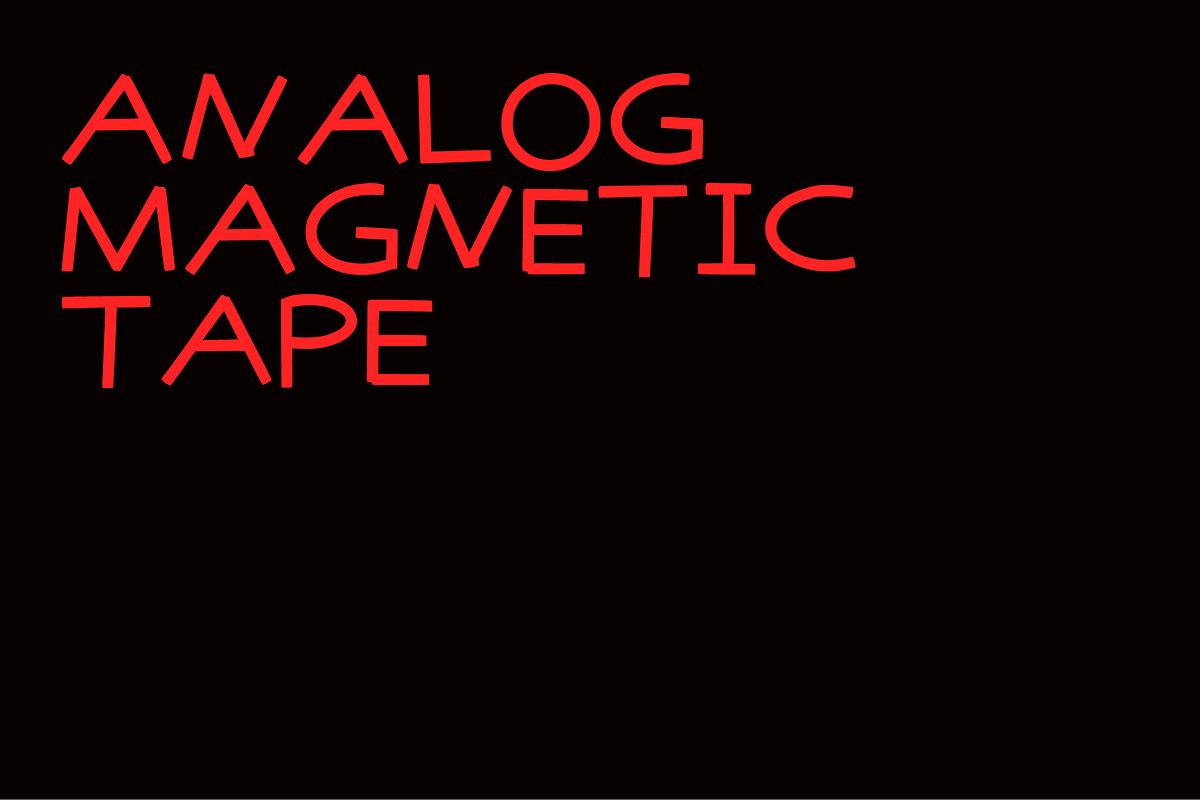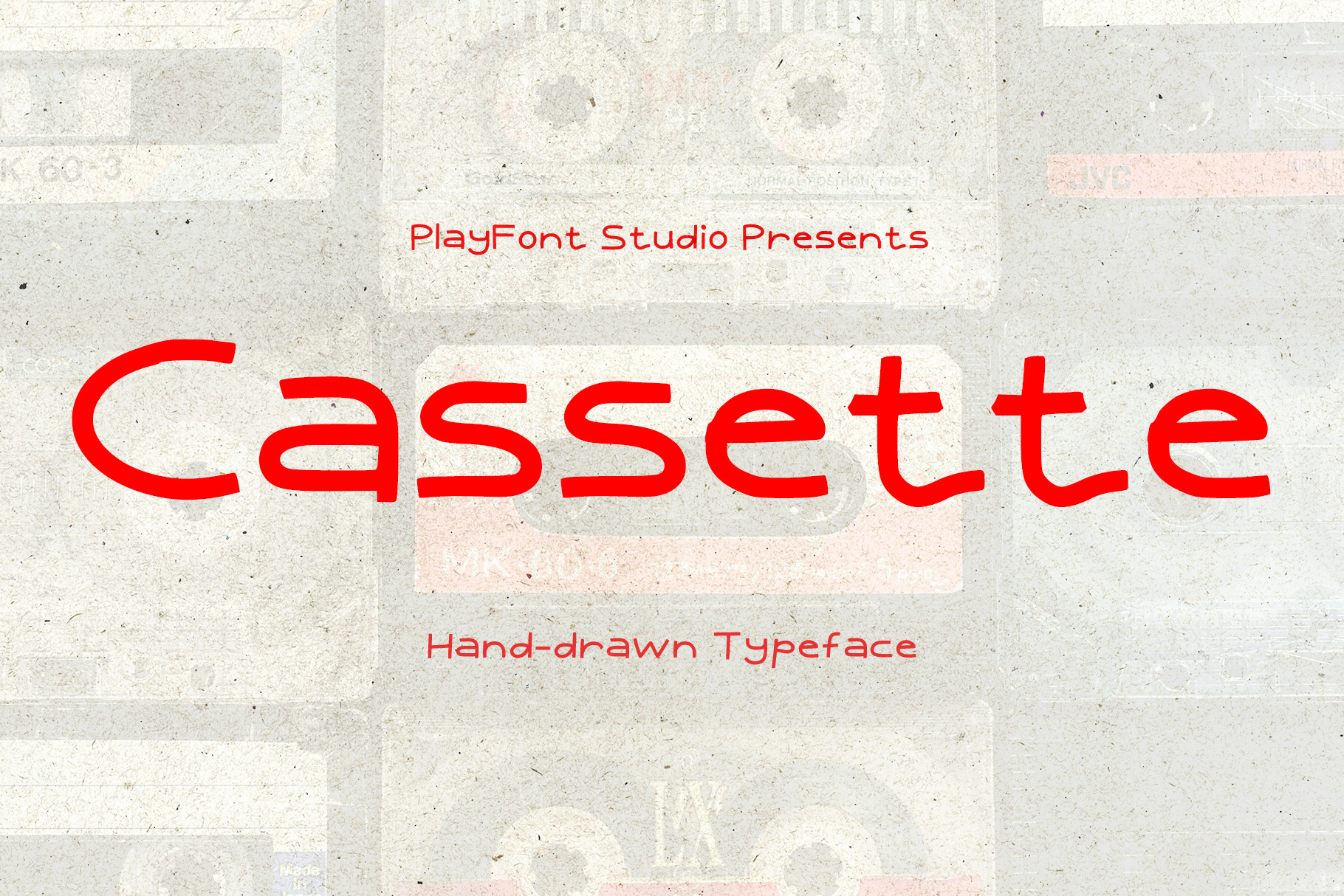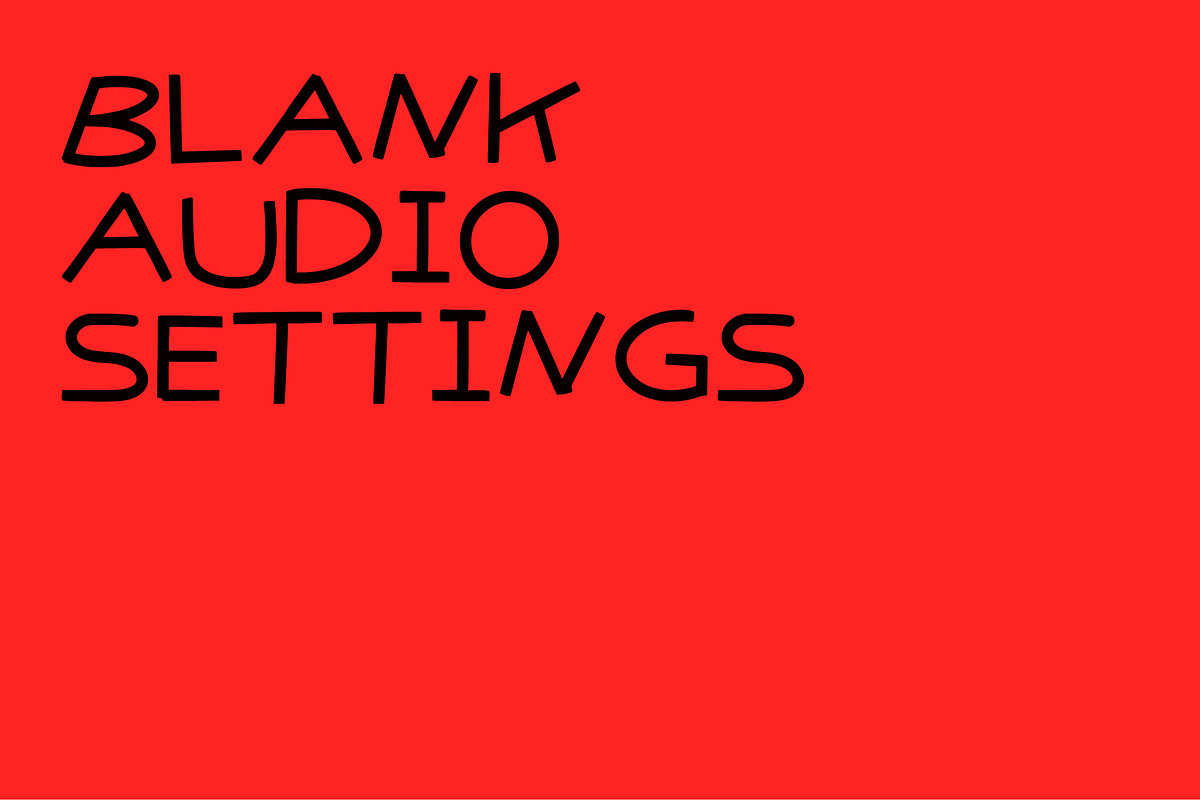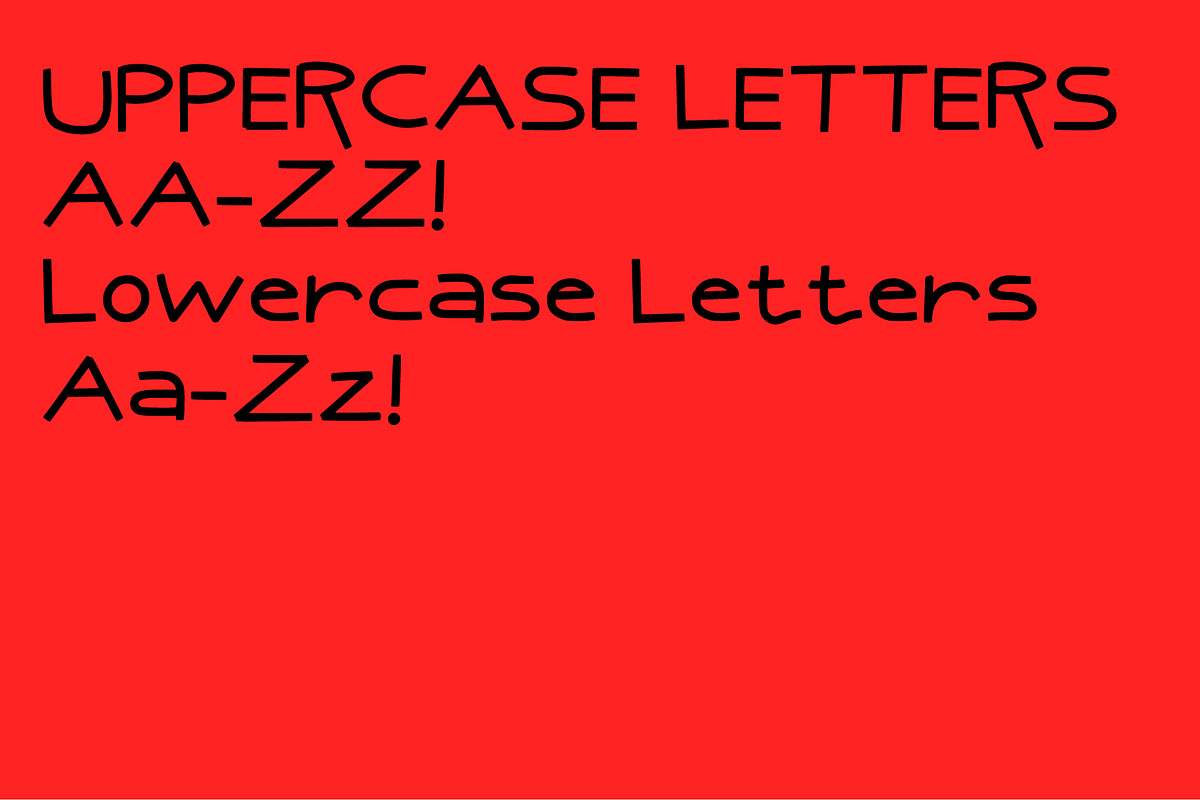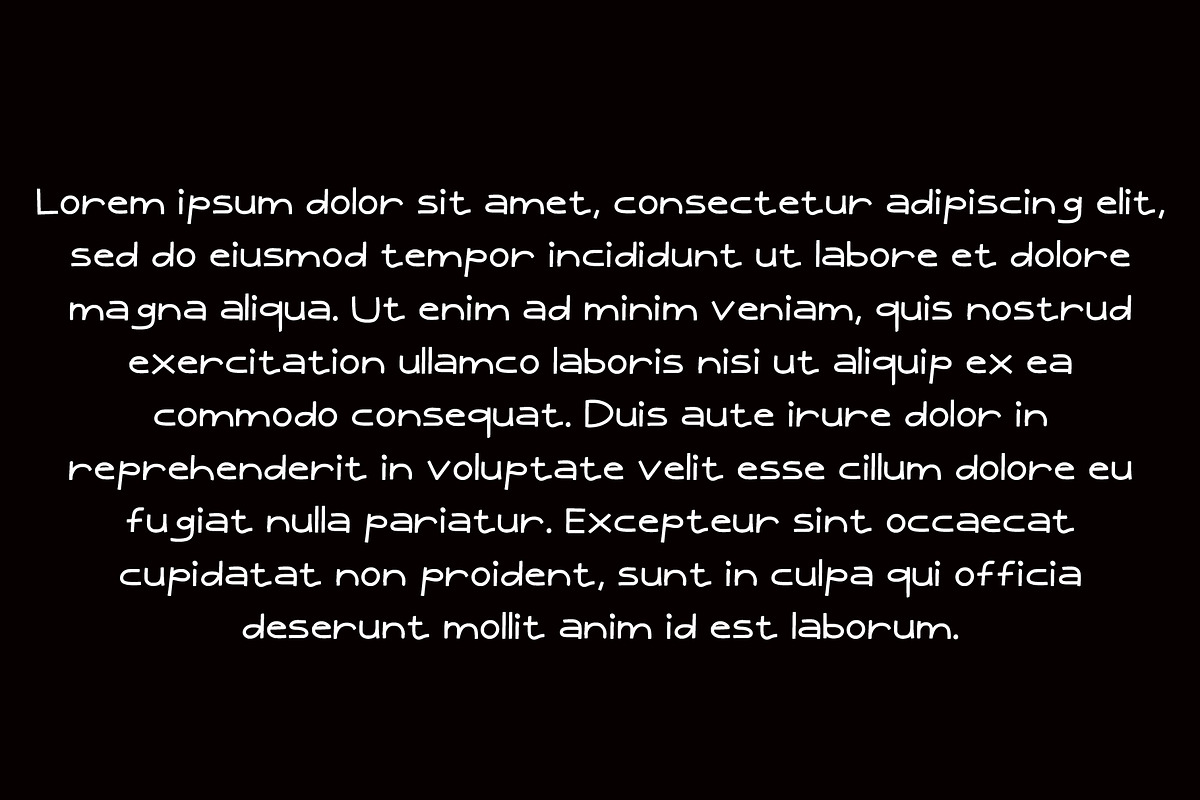
Cassette - A Retro Inspired Typeface
Introducing Cassette, a font that draws inspiration from the iconic cassette tape. This playful display typeface captures the essence of organic tape shapes but brings it into the modern. Whether you’re designing music posters, album artwork, or retro-themed branding, Cassette invites you to infuse your projects with rhythm, creativity, and a touch of analog magic.